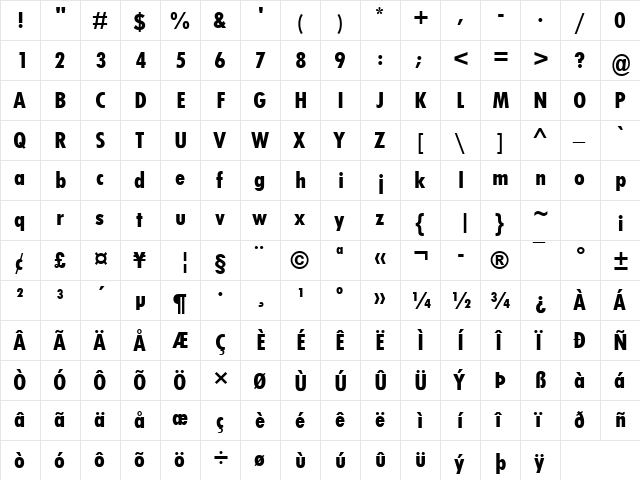
Tw Cen MT Condensed Extra Bold Regular Font Preview
| Foundry | Monotype Typography, Inc. |
| Designer | Sol Hess |
Design Context for Tw Cen MT Condensed Extra Bold Typeface
Tw Cen MT Condensed Extra Bold is a composed and adaptable typeface that performs quietly and consistently across a wide range of design contexts. Its bold stroke weight gives it real presence on the page. The condensed width makes it efficient for tight spaces without sacrificing legibility.